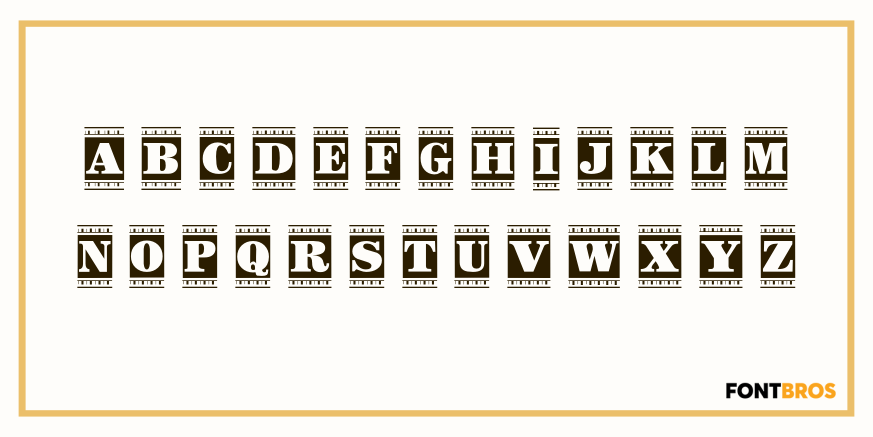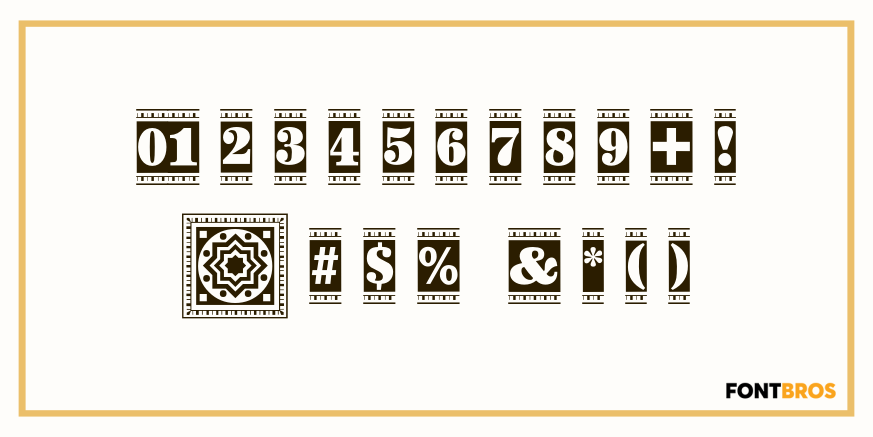
Contract Banner
Font Family by Solotype
Our penchant for banner types lives on. This one is our take on an 1880s font called Mezzotint.
Banner fonts give the appearance of art work, without having to do any. We like that.